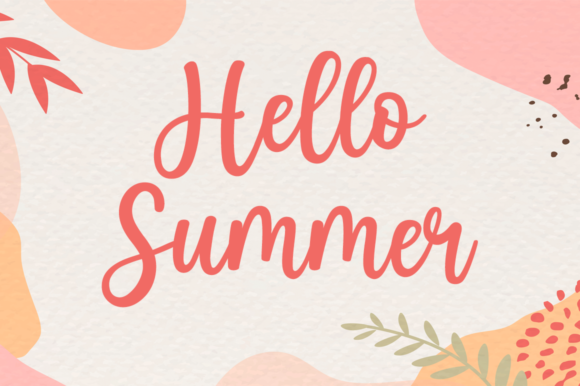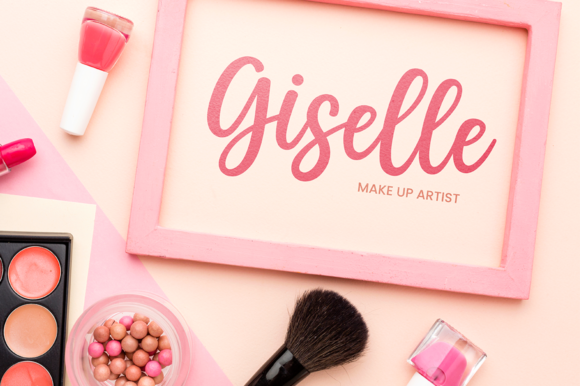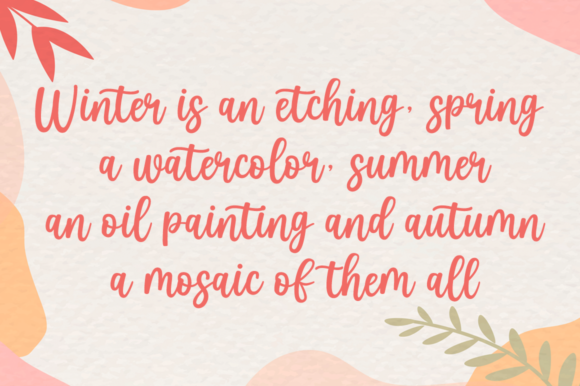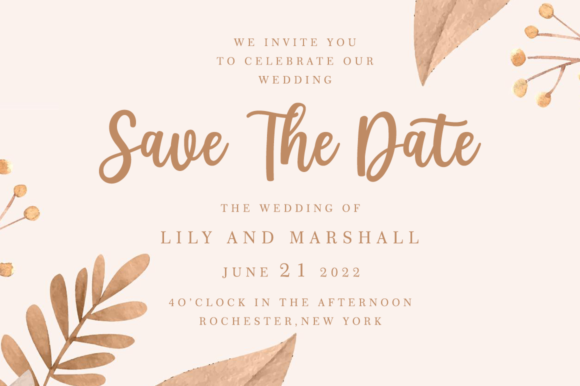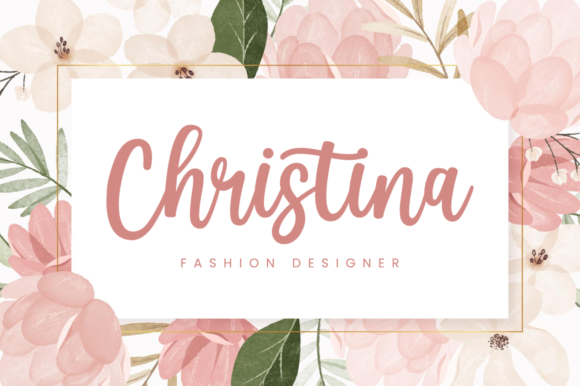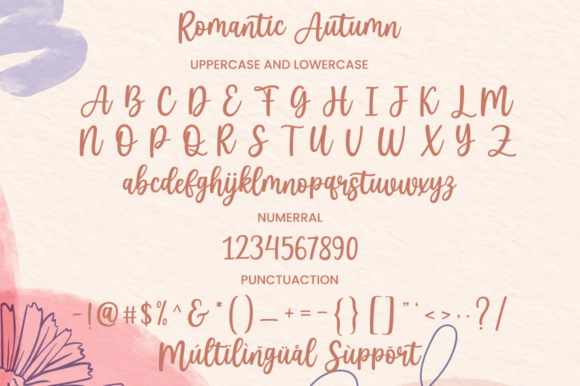
Romantic Autumn Font
About Romantic Autumn Font
Romantic Autumn feels equally charming and elegant. It looks stunning on wedding invitations, thank you cards, quotes, greeting cards, logos, business cards and every other design which needs a handwritten touch.